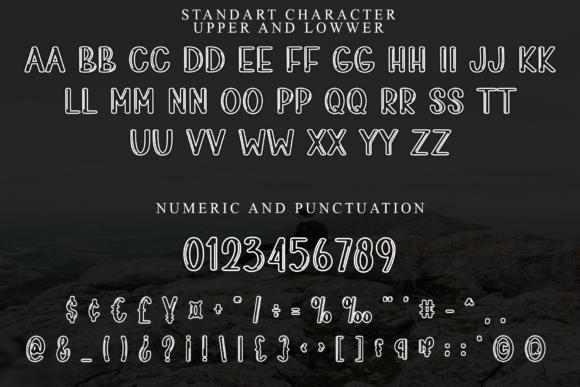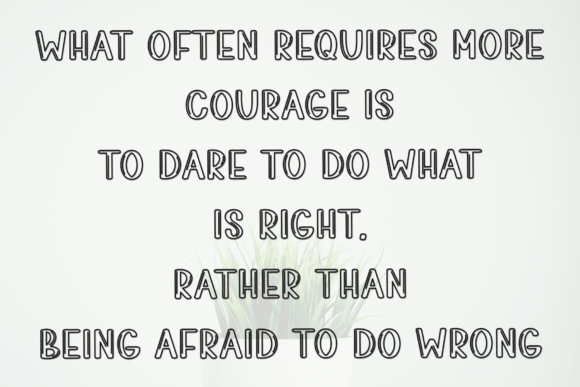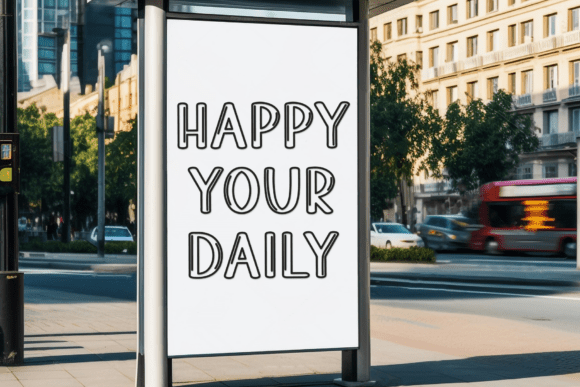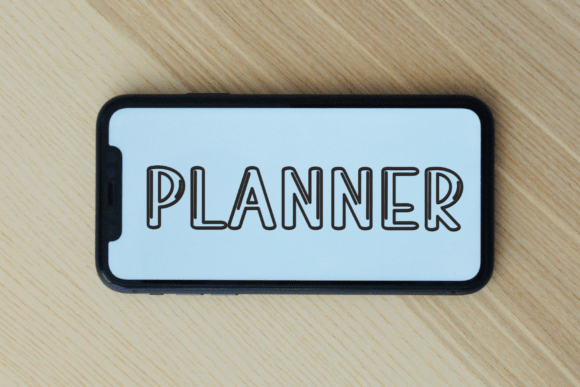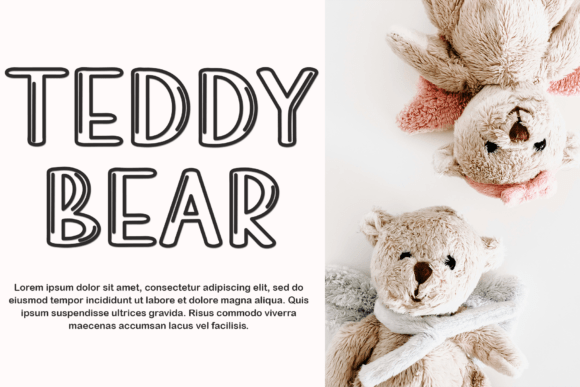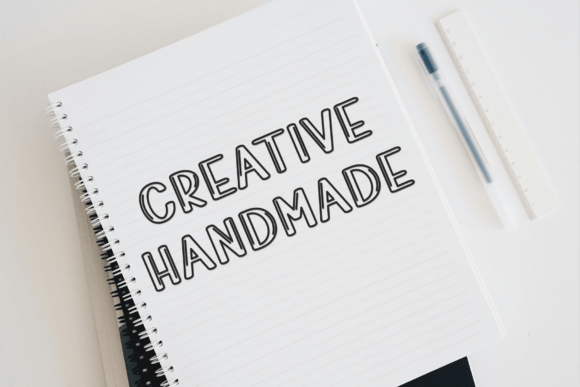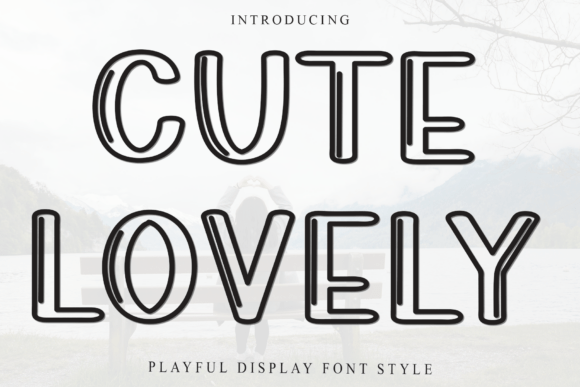
Cute Lovely Font: Elevate Your Designs with a Soft and Unique Touch
In the world of typography, a font can make or break a design. It’s the perfect blend of style, elegance, and creativity that brings a project to life. If you’re a designer, crafter, or creative enthusiast looking for a font that exudes a soft, unique touch, then you’re in luck! Introducing the Cute Lovely Font, a beautiful and eye-catching typeface designed to add a special character to your work.
The Distinctive Features of Cute Lovely Font
The Cute Lovely Font boasts distinctive strokes that give it a special character, making it both meaningful and versatile for future use. Its soft and unique touch is perfect for design projects, crafts, and other creative works where a personal touch is desired. Whether you’re working on a logo, branding materials, or social media graphics, this font is sure to make your designs stand out.
A World of Creative Possibilities
One of the best things about the Cute Lovely Font is its versatility. With a wide range of characters, you can experiment with different styles and combinations to create something truly unique. From playful and whimsical to elegant and sophisticated, this font adapts seamlessly to your creative vision.
Whether you’re a:
- Graphic designer looking for a fresh font to add to your arsenal
- Crafter seeking a unique font for your handmade products
- Social media influencer wanting to elevate your visual brand
- Small business owner looking for a font that reflects your brand’s personality
the Cute Lovely Font is perfect for a wide range of applications, including:
- Invitations and party decorations
Why Choose Cute Lovely Font?
So, what sets the Cute Lovely Font apart from other fonts? Here are just a few reasons why designers and crafters love this font:
- Unique and eye-catching design: The Cute Lovely Font is designed to grab attention and make your designs stand out.
- Soft and elegant touch: Its soft and elegant strokes give it a warm and inviting feel, perfect for designs that require a personal touch.
- Versatile and adaptable: Whether you’re working on a logo, social media graphic, or packaging design, this font adapts seamlessly to your creative vision.
In conclusion, the Cute Lovely Font is a beautiful and eye-catching typeface that’s perfect for designers, crafters, and creative enthusiasts. Its distinctive strokes, soft and unique touch, and versatility make it an ideal choice for a wide range of design projects and applications.